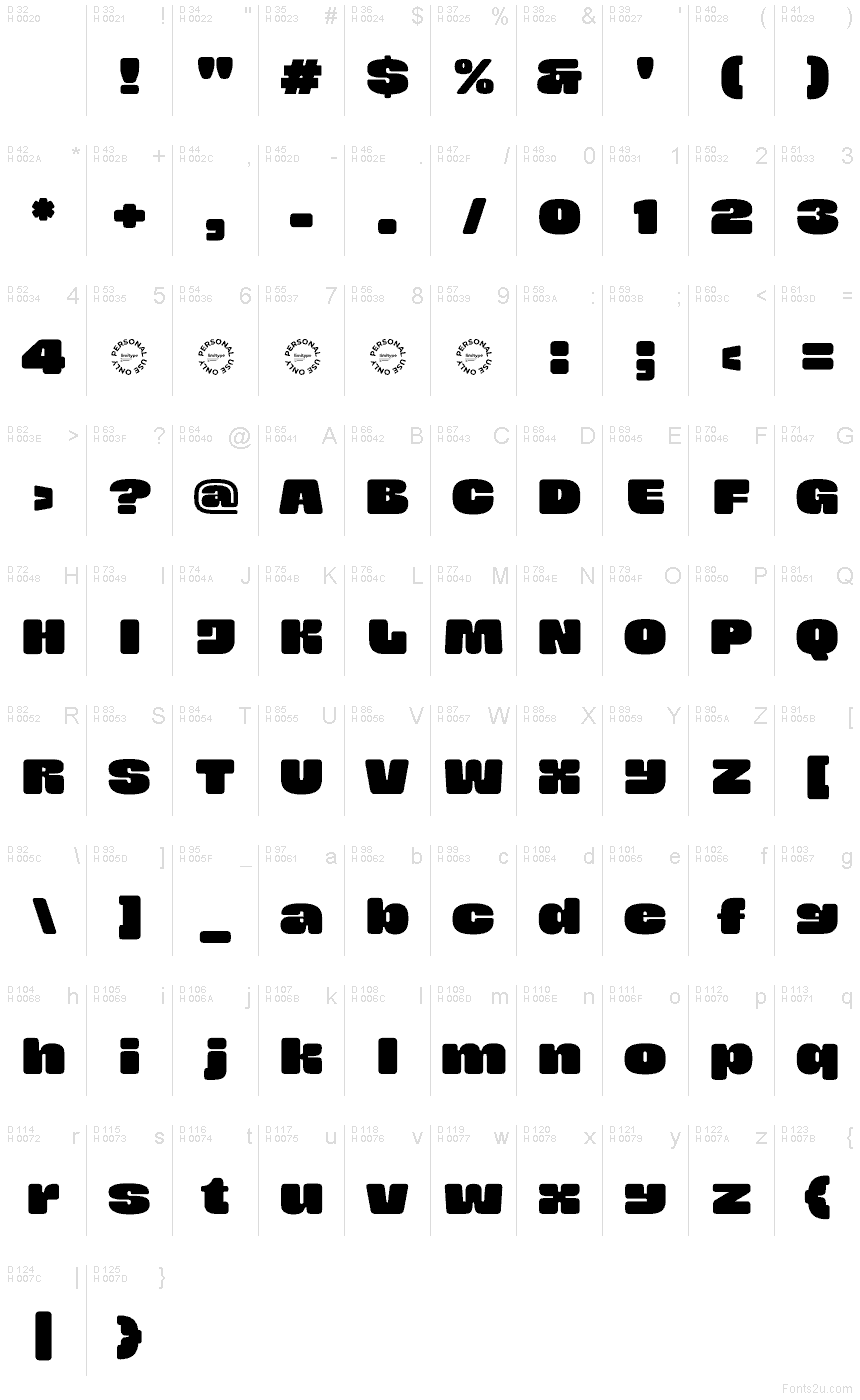
Boldnova Demo
Boldnova font by Limitype Foundry is a free ultra‑bold rounded display font that solves the “loud but friendly” brief in one move. Its pillowy shapes, tight rhythm, and even inky color deliver instant impact without the bark—think big, soft blocks of tone that read fast and feel approachable. The generous curves smooth out harsh edges, so headlines hit hard but stay warm on screens and print.
Using Boldnova, you can punch up posters, event flyers, packaging, social banners, stickers, and YouTube thumbnails with confident, candy‑coated weight. It shines on short words and chunky hashtags, keeping messages legible at a glance. One simple pairing tip: set captions in a clean light sans to contrast the heft, and let this free font take the spotlight at large sizes.
Boldnova font by Limitype Foundry is a free ultra‑bold rounded display font that solves the “loud but friendly” brief in one move. Its pillowy shapes, tight rhythm, and even inky color deliver instant impact without the bark—think big, soft blocks of tone that read fast and feel approachable. The generous curves smooth out harsh edges, so headlines hit hard but stay warm on screens and print.
Using Boldnova, you can punch up posters, event flyers, packaging, social banners, stickers, and YouTube thumbnails with confident, candy‑coated weight. It shines on short words and chunky hashtags, keeping messages legible at a glance. One simple pairing tip: set captions in a clean light sans to contrast the heft, and let this free font take the spotlight at large sizes.